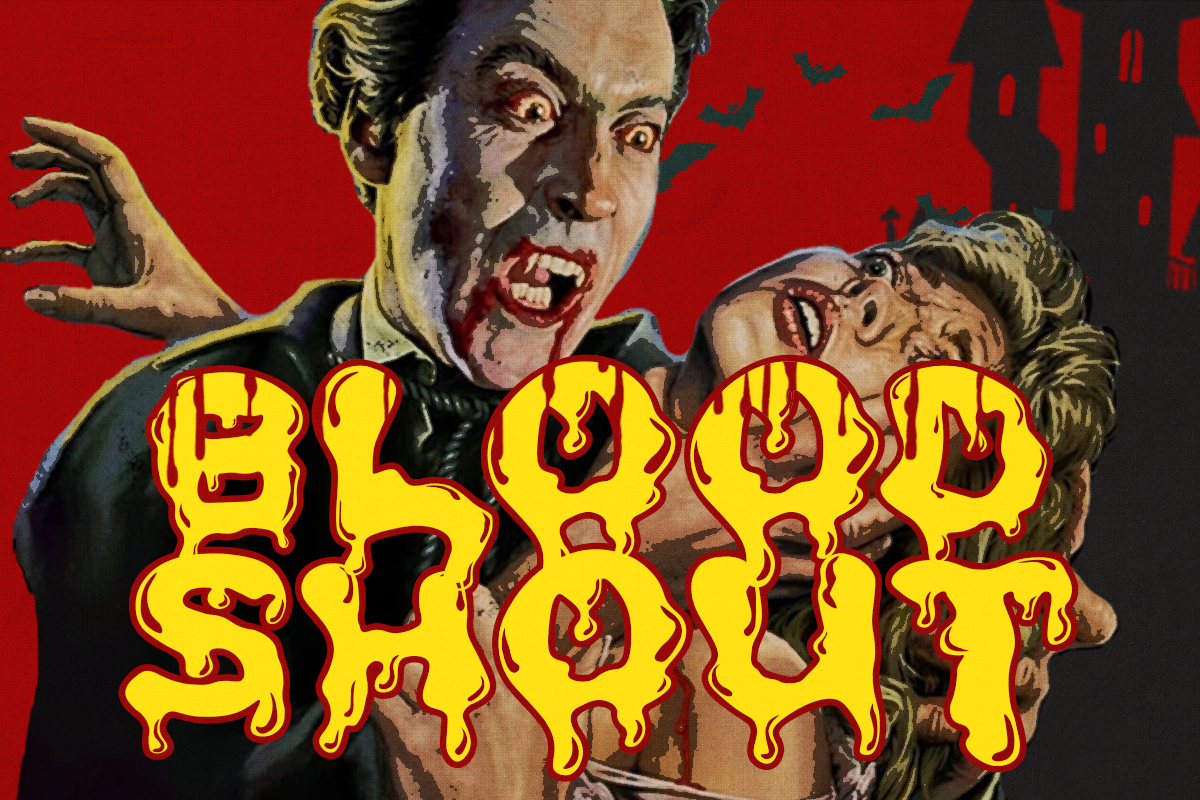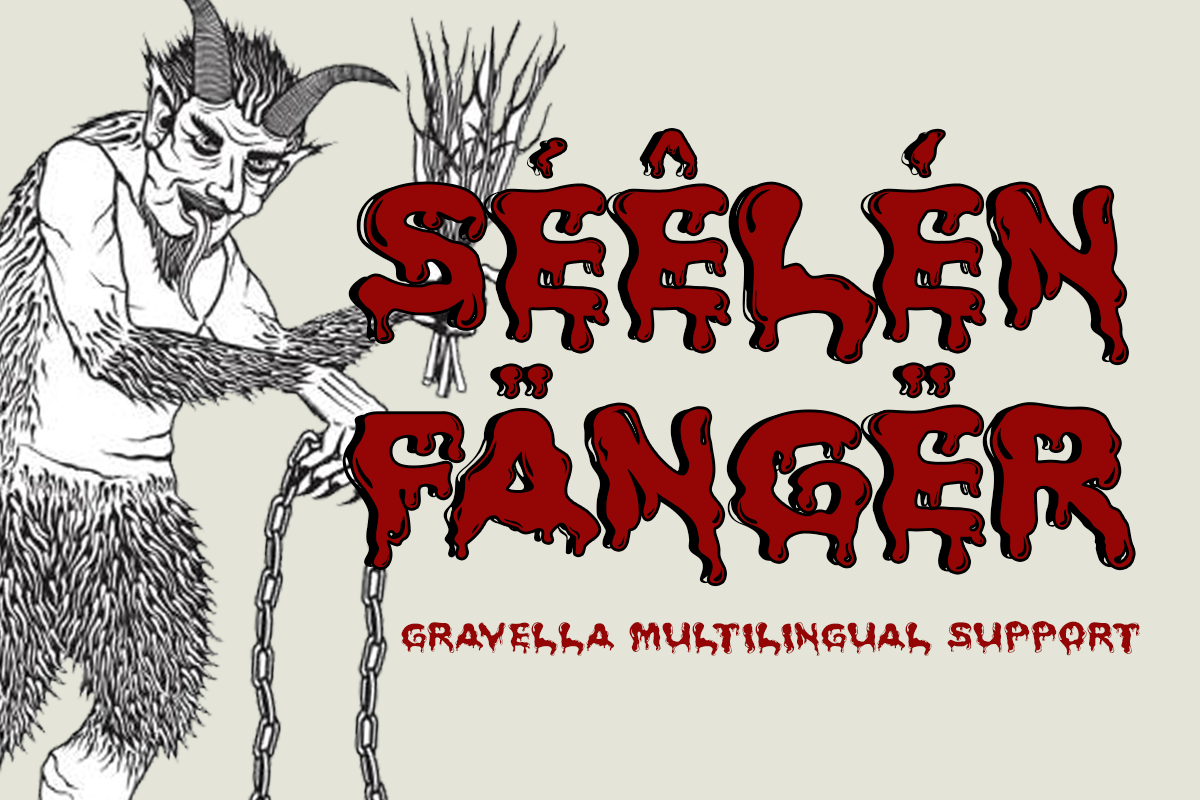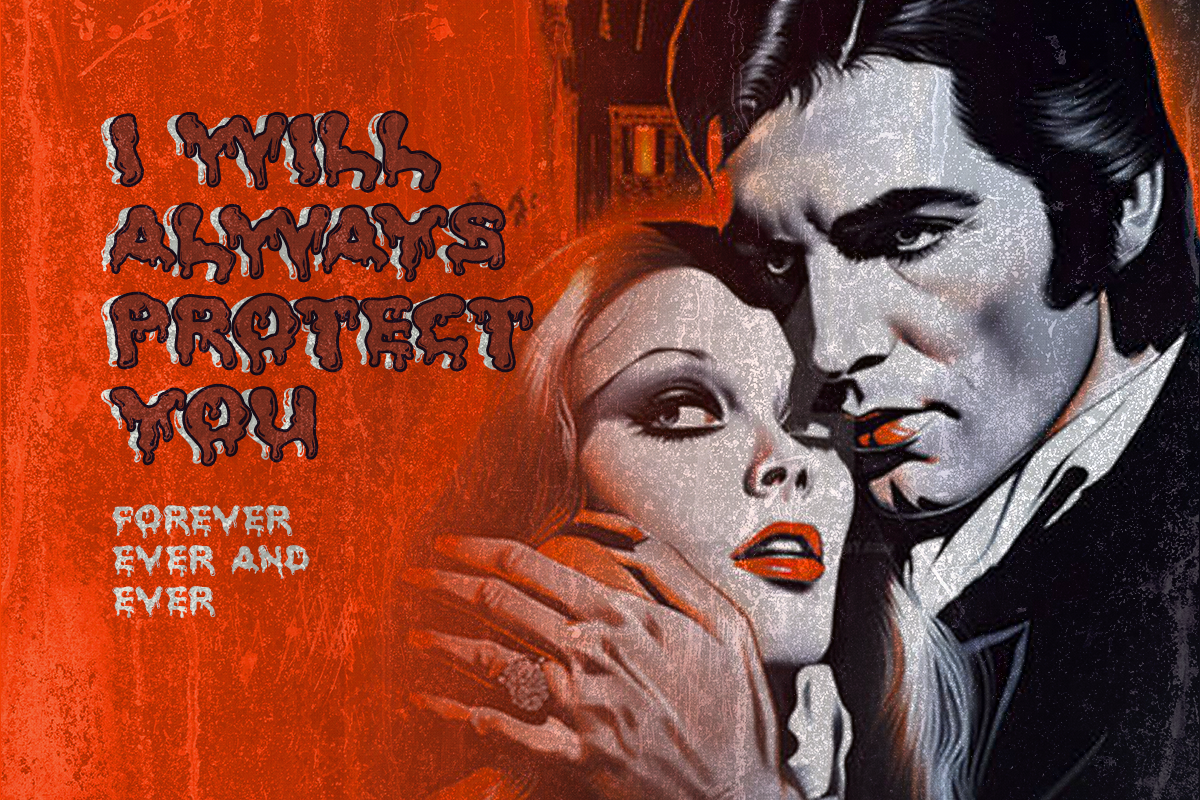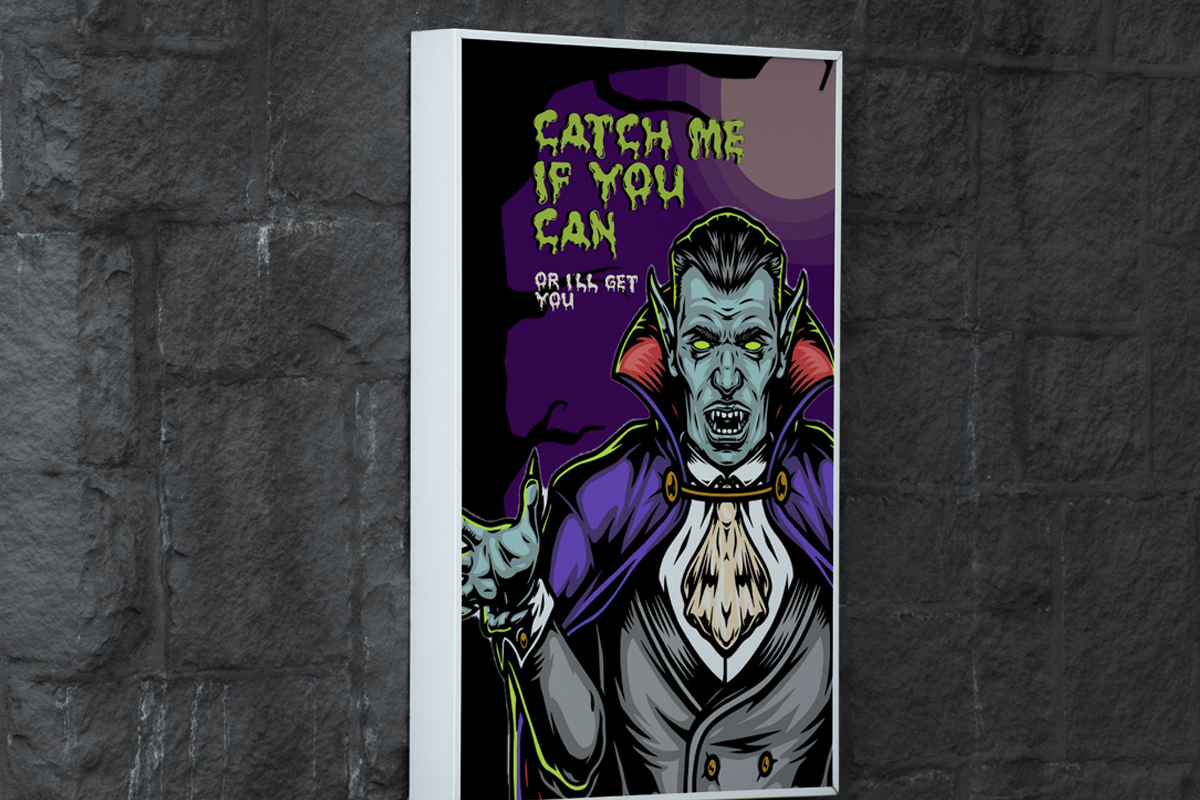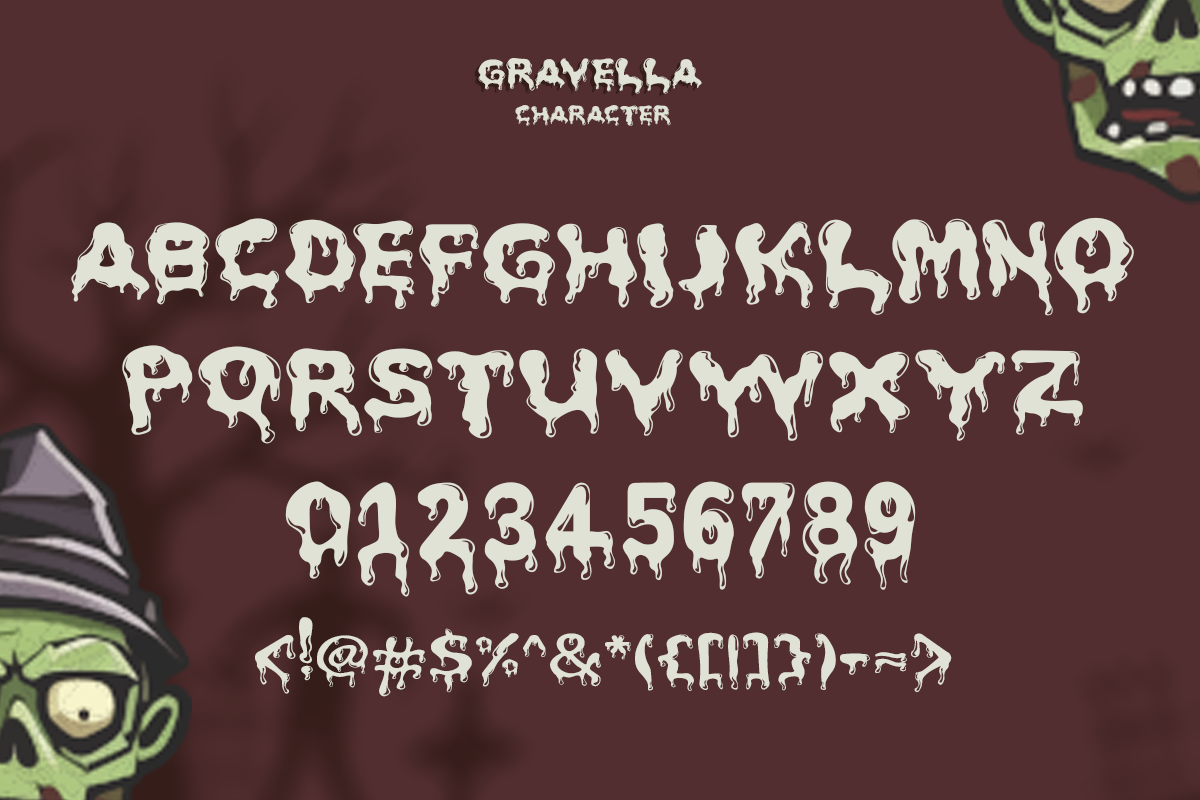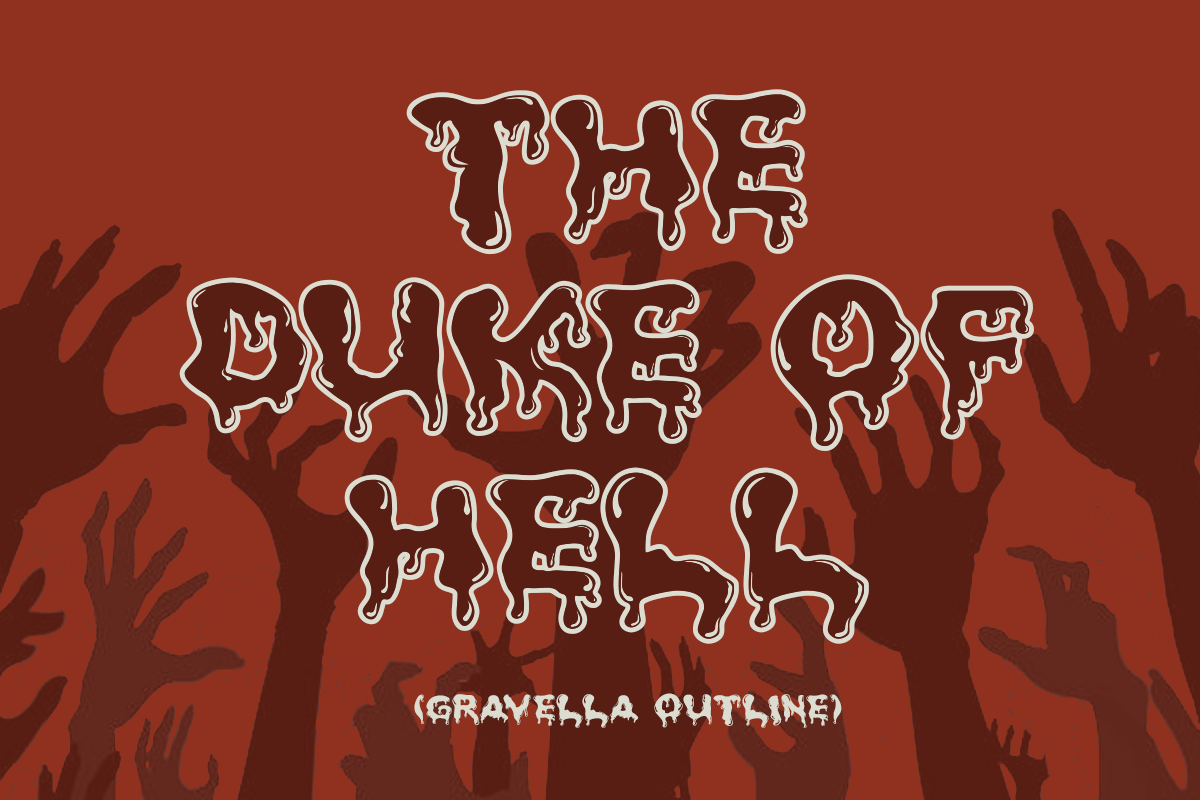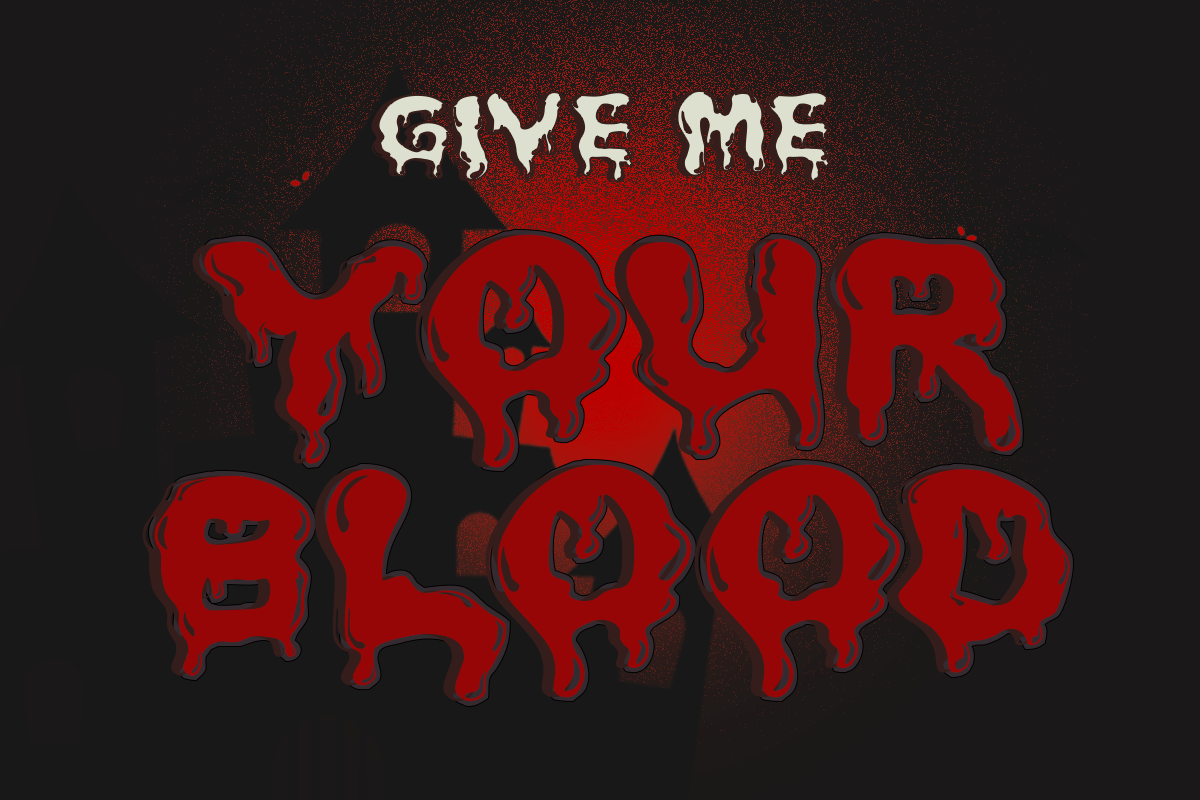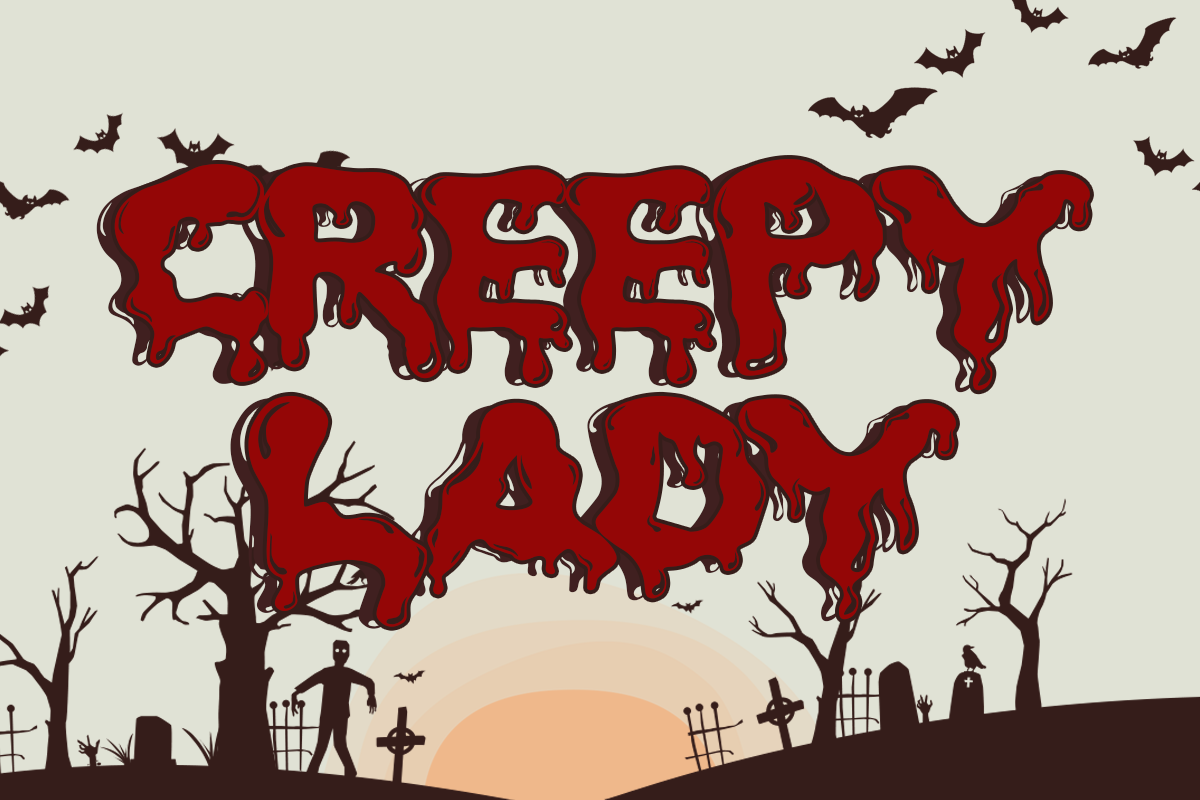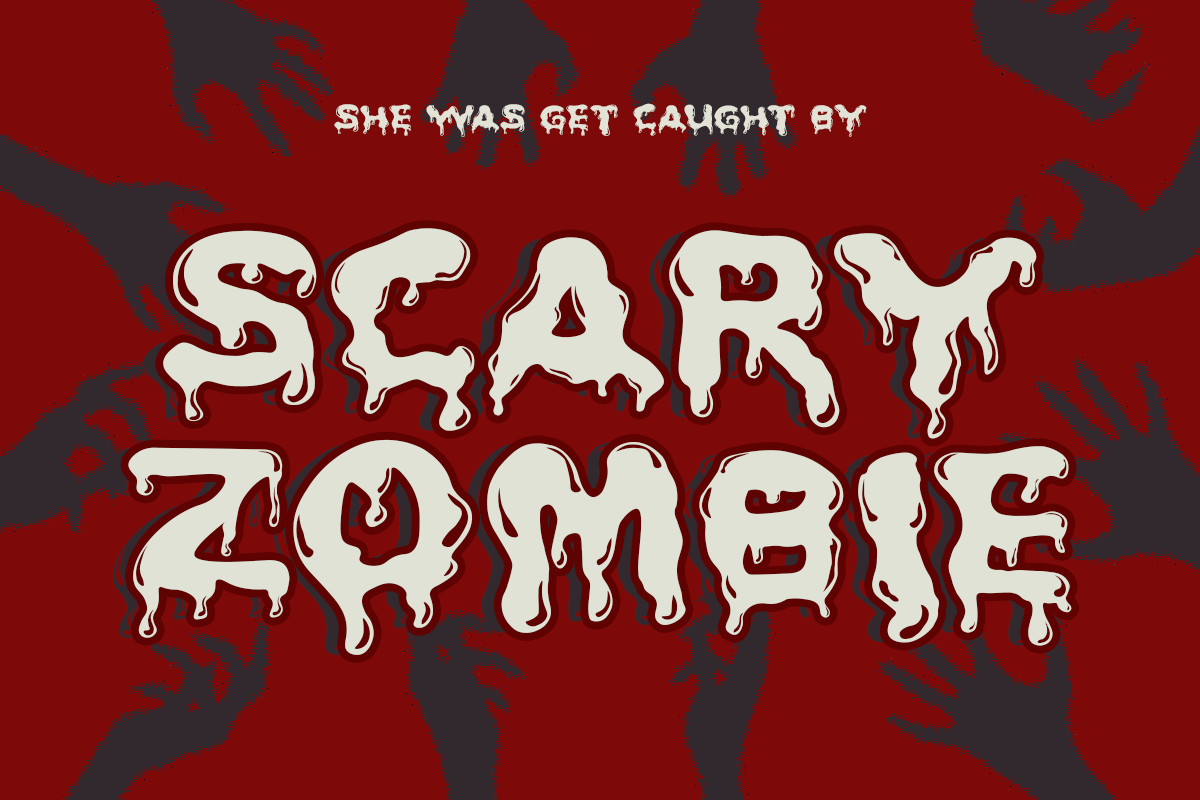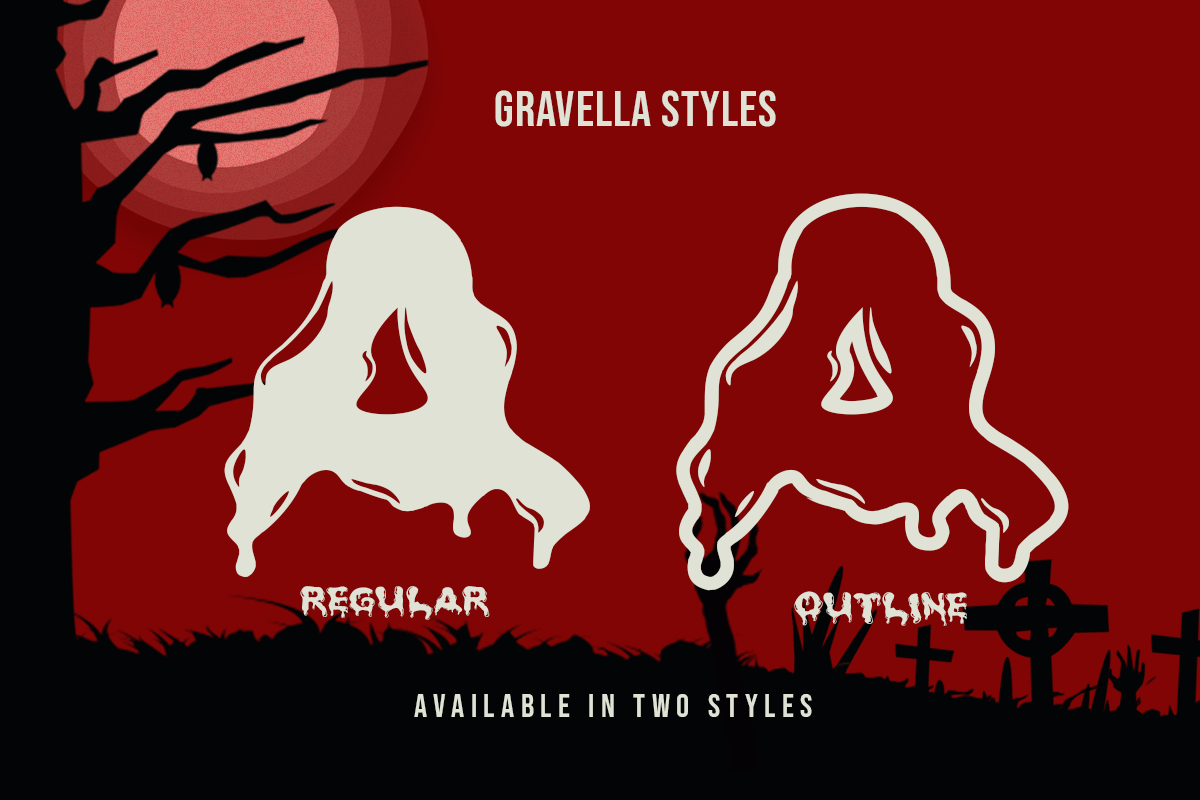
Gravella - Spooky Halloween Font
Introducing Gravella - A Creepy Hand-Drawn Horror Font
The terror with Gravella, the ultimate font for all things spooky, creepy, and downright scary! Perfect for Halloween-themed projects, monster fanatics, and anyone who loves the eerie vibe of a haunted night, Gravella is your go-to typeface for adding that blood-chilling touch to your designs.
This hand-drawn font oozes with horror, making it ideal for everything from stickers and social media posts to movie posters, book covers, logos, and merchandise. With its unsettling curves and terrifying details, Gravella will bring your darkest design dreams to life.
- Regular and Outline Style
- Unique letterforms